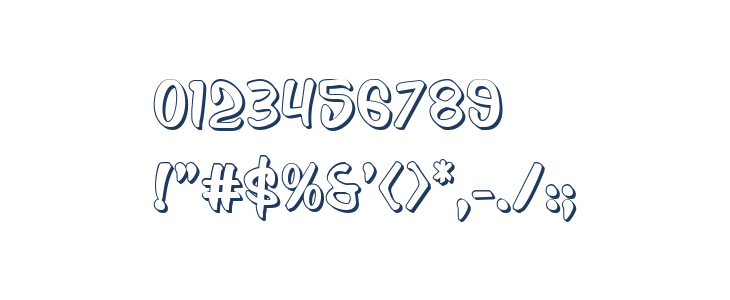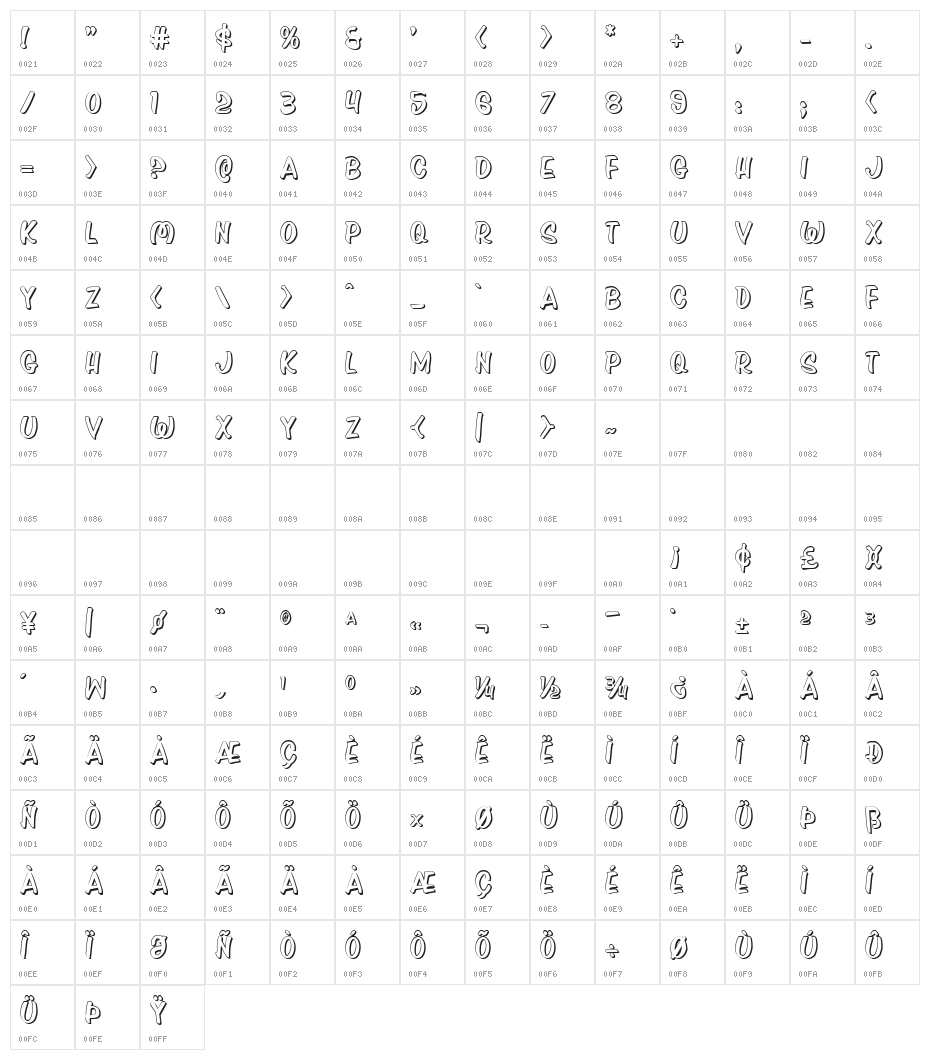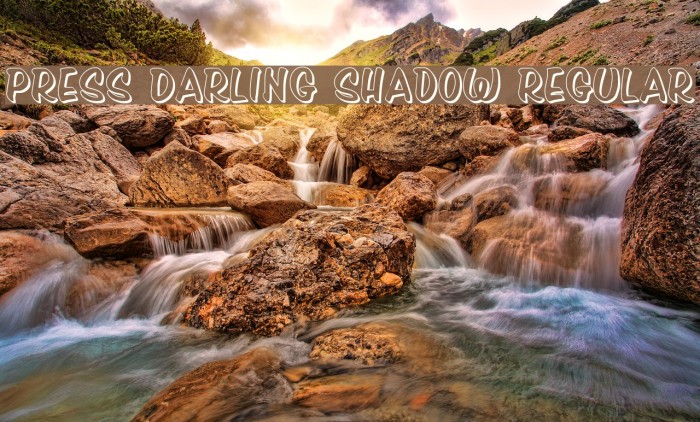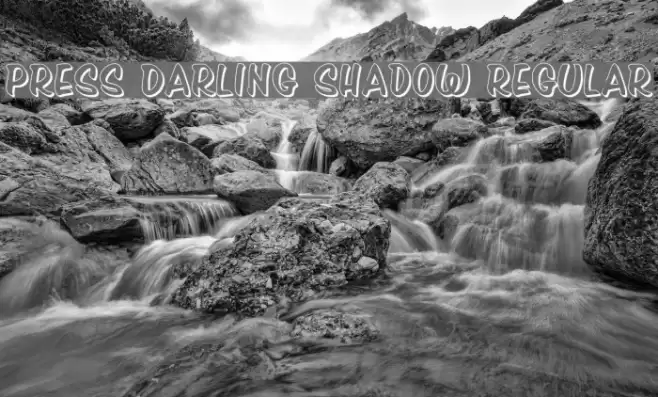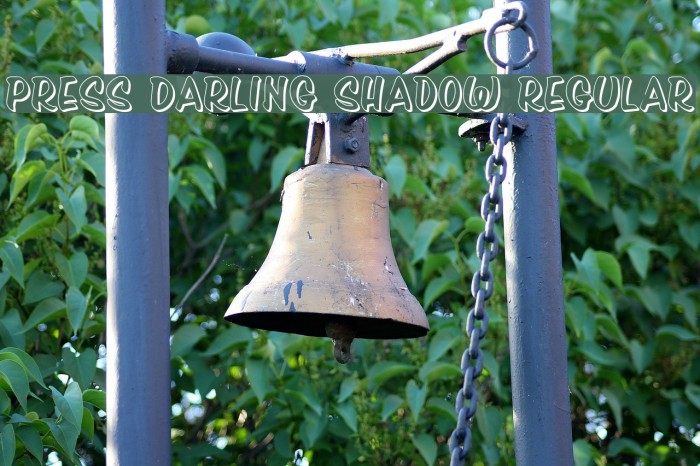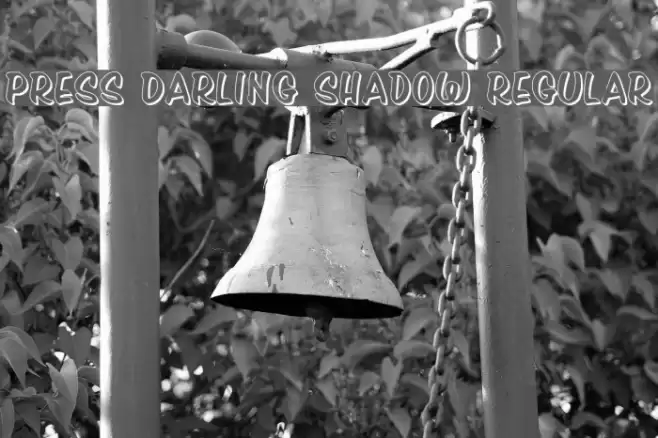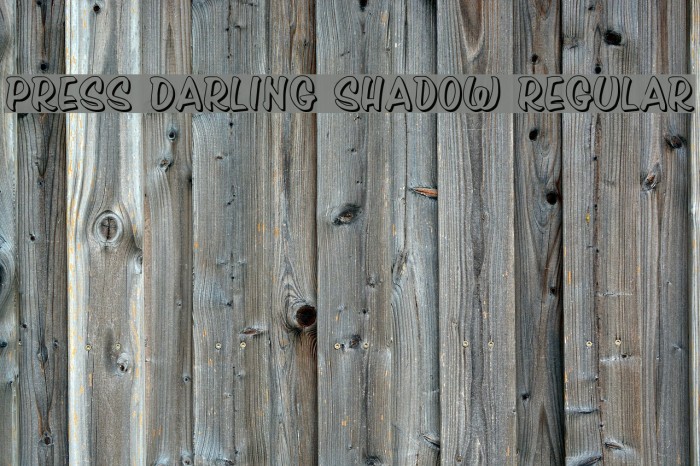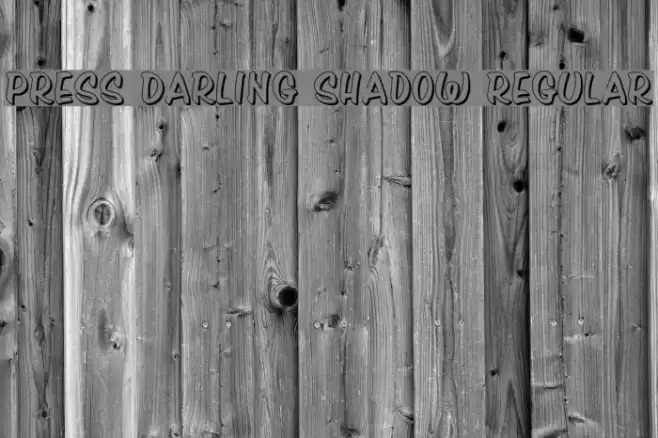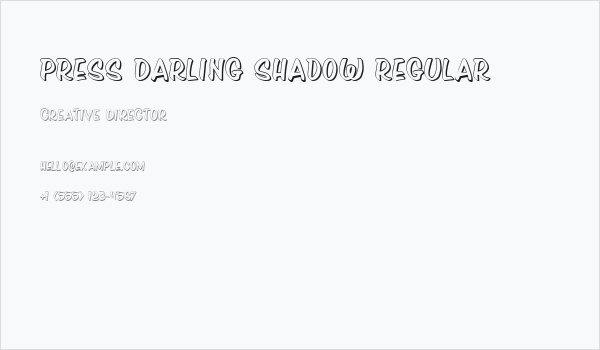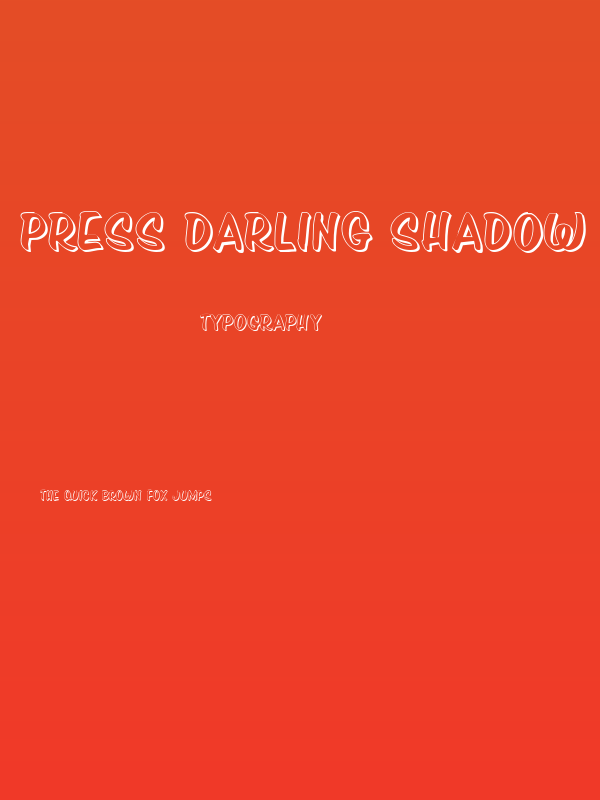
Press Darling Shadow Regular Font
Press Darling Shadow Regular Description
This playful and bold font features a distinctive shadow effect that gives each character a three-dimensional appearance. The letters are rounded and slightly inflated, creating a fun and approachable vibe. The uppercase and lowercase characters maintain a consistent style, with a slight slant that adds to the dynamic feel. The numbers and special characters are designed to match the overall aesthetic, making this font suitable for a variety of creative projects. The shadow effect enhances the visibility and impact of the text, making it ideal for eye-catching designs.
| Overall Style | Playful, Fun, Dynamic |
| Proposed Projects | Great for children's books, comic strips, playful branding, and event posters. |